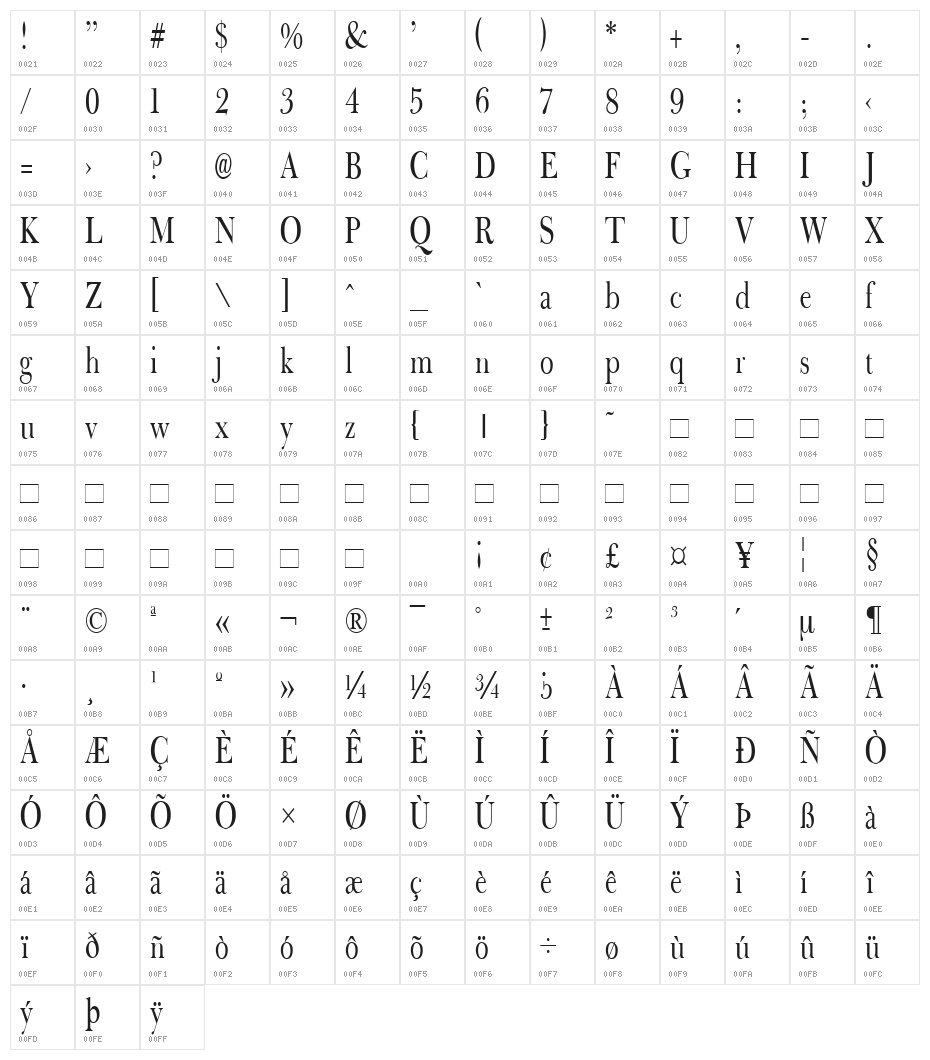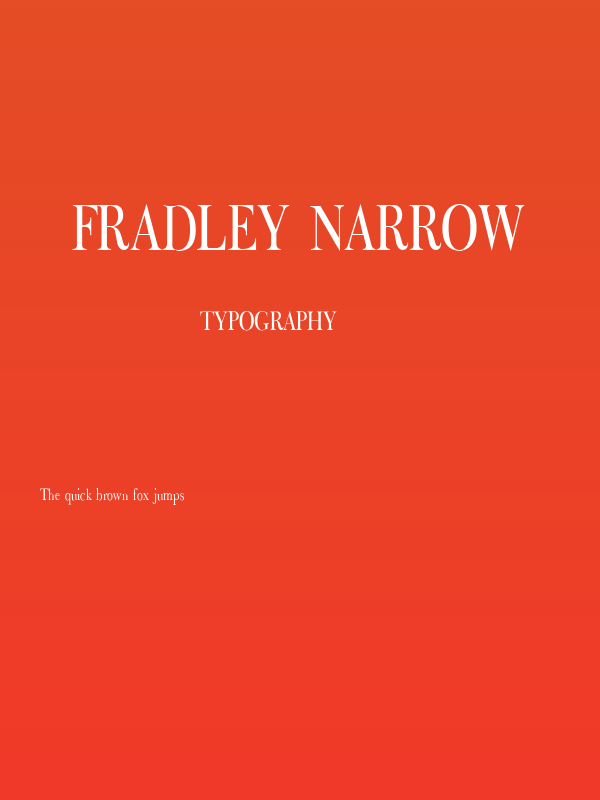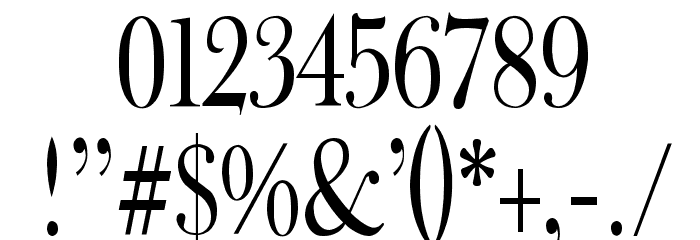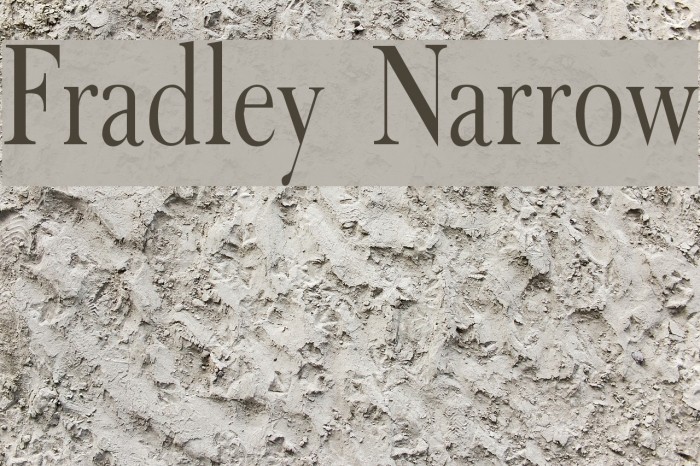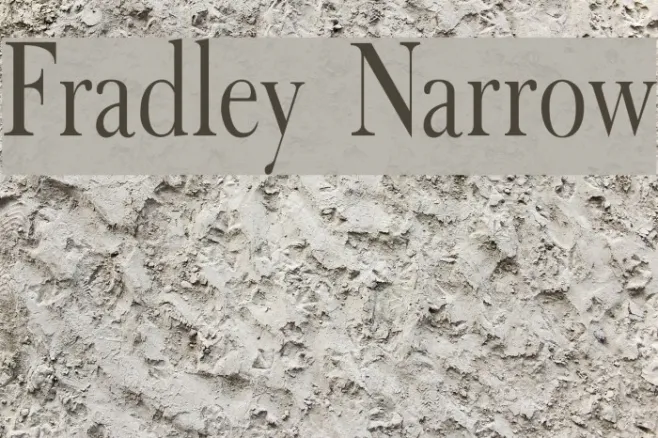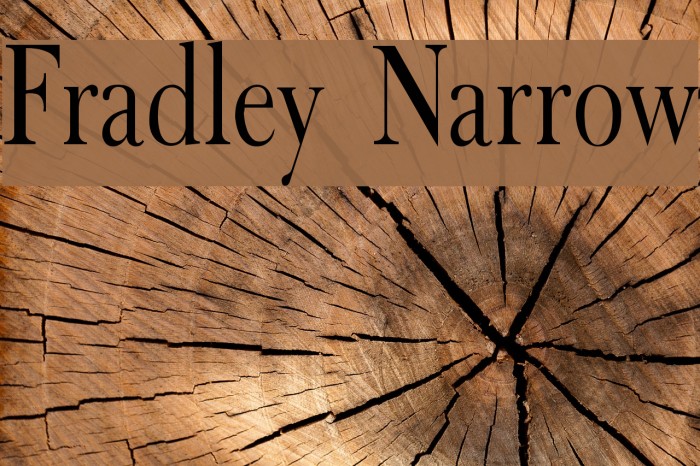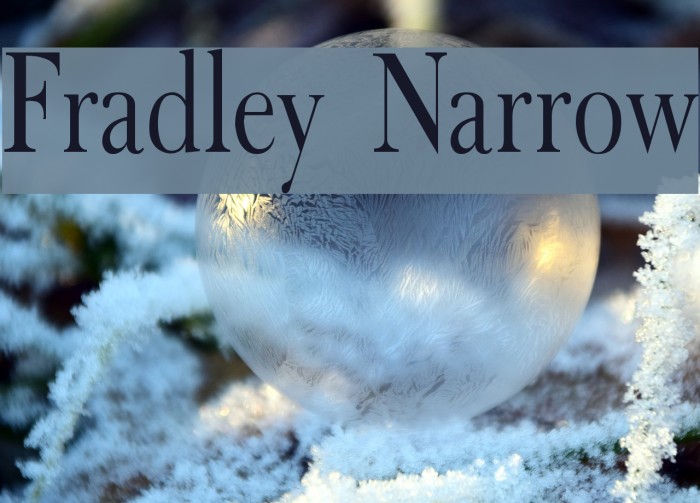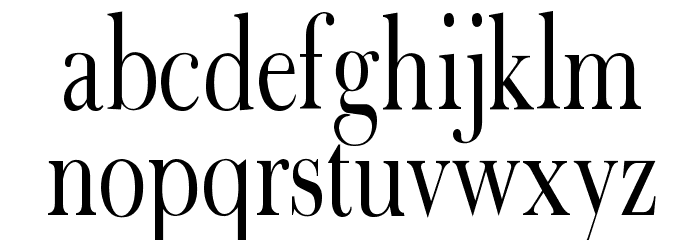
Fradley Narrow Font
Fradley Narrow Description
This elegant serif typeface features a refined and sophisticated design with high contrast between thick and thin strokes. The uppercase letters exhibit a classic and timeless appeal, with distinct serifs that add a touch of formality. The lowercase letters maintain a harmonious balance, offering readability and style. The numerals are well-proportioned, complementing the overall aesthetic. Special characters are thoughtfully designed, ensuring consistency across the typeface. This font is ideal for projects that require a touch of elegance and tradition, such as formal invitations, editorial design, and branding for luxury products.
| Use Case | Headlines, Editorials, Branding |
| Proposed Projects | Ideal for formal invitations, editorial design, luxury branding, and classic book covers. |